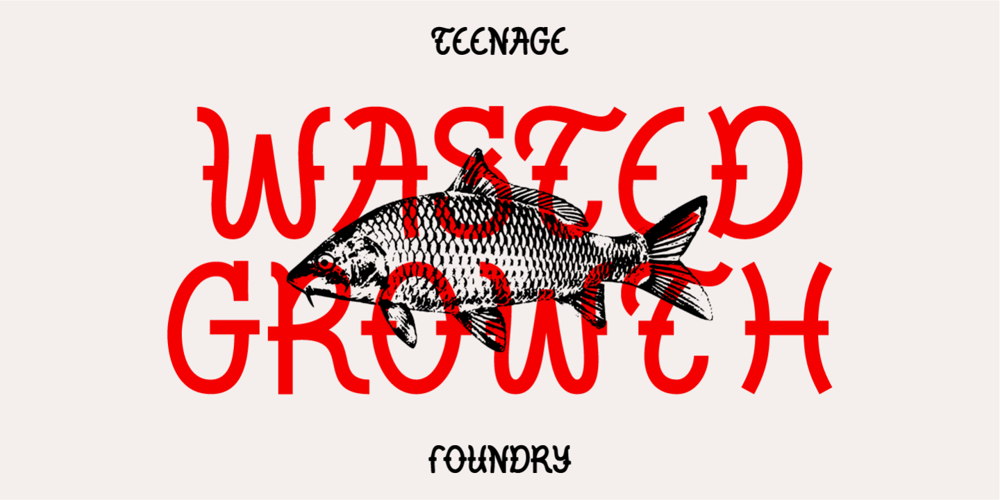
TF Wasted Growth Font Family was designed by Miftahul Habib and published by Teenage Foundry. TF Wasted Growth contains 2 styles and family package options. Wasted Growth is a display font with a strong style is back. There are 2 styles, Regular & Blur. Suitable for merchandise designs, covers, posters and others.Features: Uppercase, Lowercase, Numeral, Punctuation & Multilingual.For any questions please contact me 🙂Thanks!